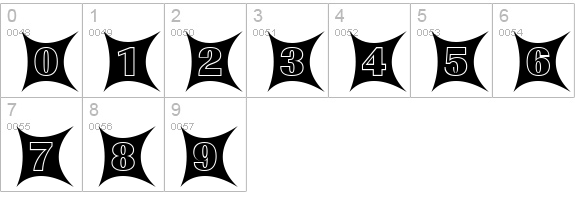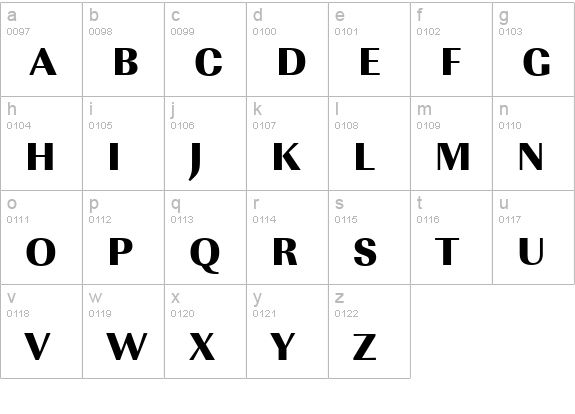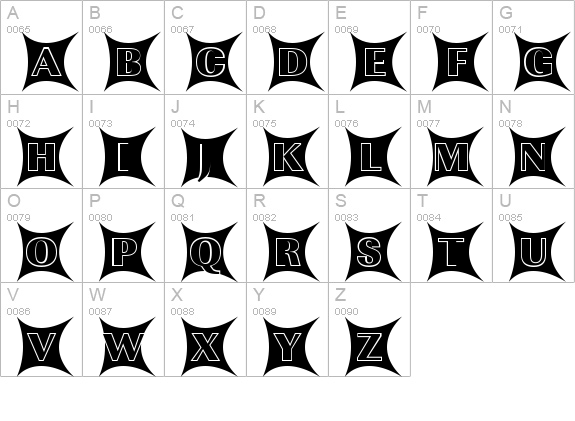
ImperialBlaze-Regular is the standard, neutral variant in the ImperialBlaze typeface family \xE2\x80\x94 well suited to general body text, paragraphs, and standard typographic work.
ImperialBlaze-Regular font is a stylish and elegant typeface that exudes sophistication and class. With its impeccable design and clean lines, this font is perfect for a wide range of projects, from branding to editorial design. The sleek serifs and subtle curves of ImperialBlaze-Regular add a touch of refinement to any text, making it a versatile choice for both print and digital applications. What makes ImperialBlaze-Regular even more appealing is that it is available for free download at FontsMarket.com. This means that you can access this high-quality font without any cost, making it a valuable addition to your font library. Whether you are a designer looking for a new typeface to elevate your projects or a business owner in need of a sophisticated font for your branding, ImperialBlaze-Regular is sure to impress with its timeless elegance. Download it today and enhance your designs with this beautiful and versatile font.